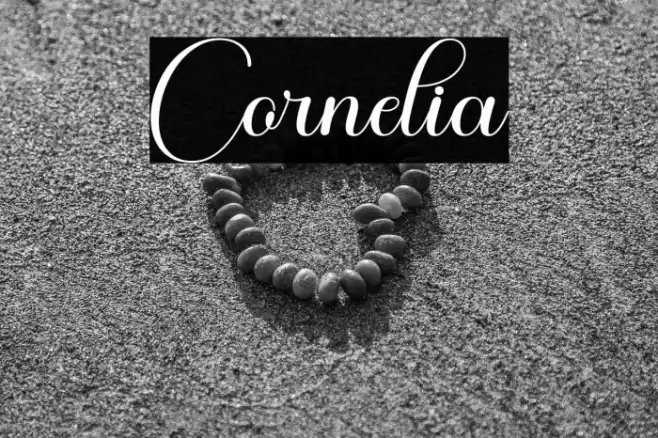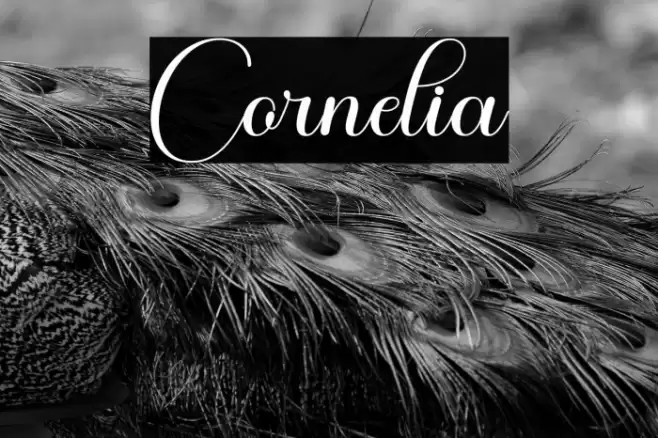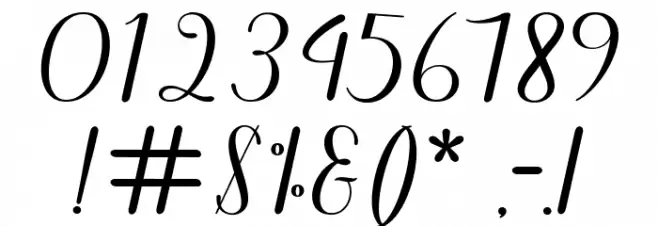
Cornelia Font
Cornelia Description
This elegant script font features flowing, interconnected letters with a classic calligraphic style. The uppercase characters are tall and graceful, with sweeping curves and delicate loops, while the lowercase letters maintain a consistent flow, emphasizing the font's fluidity. The numerals are stylishly integrated, matching the overall aesthetic with their curved and slightly elongated forms. Special characters are designed with the same attention to detail, ensuring a cohesive look throughout. This font exudes sophistication and charm, making it ideal for projects that require a touch of elegance.
An elegant script font with flowing, interconnected letters and a classic calligraphic style from Regular fonts.
- Proposed Projects: Wedding invitations, luxury branding, elegant stationery, and high-end product packaging.
- Overall Style: Classic
- Use Case: Logos, Invitations, Decorative text